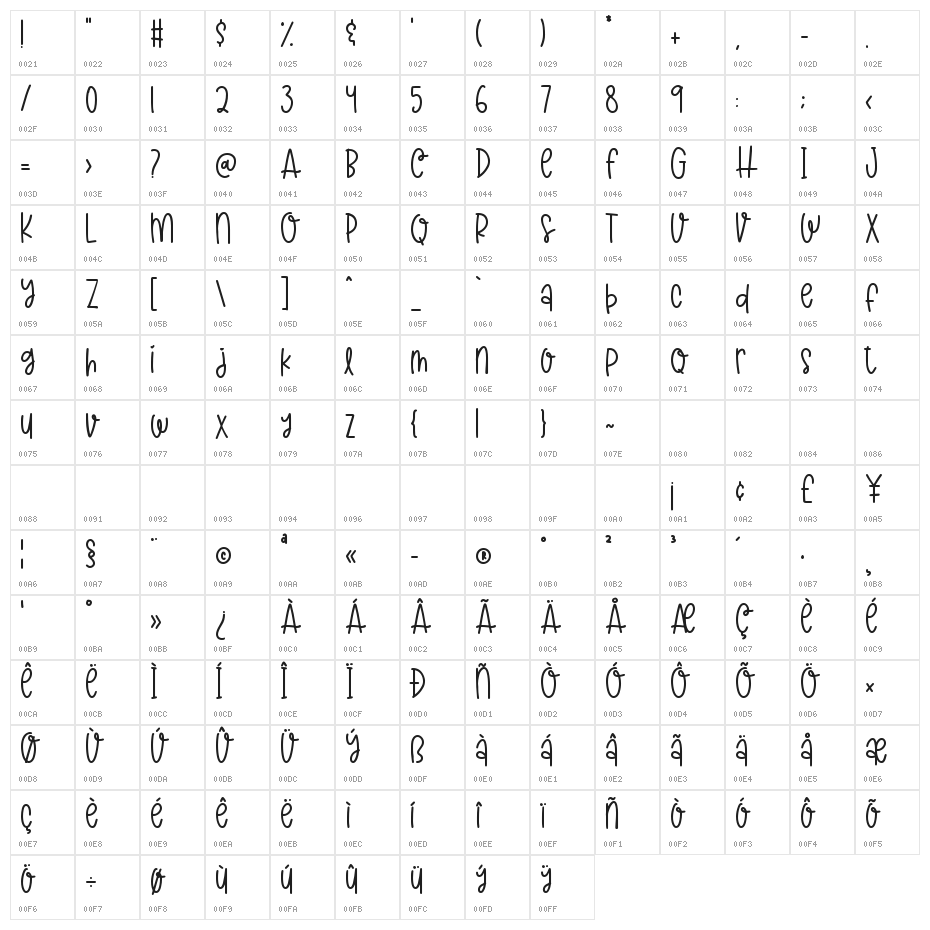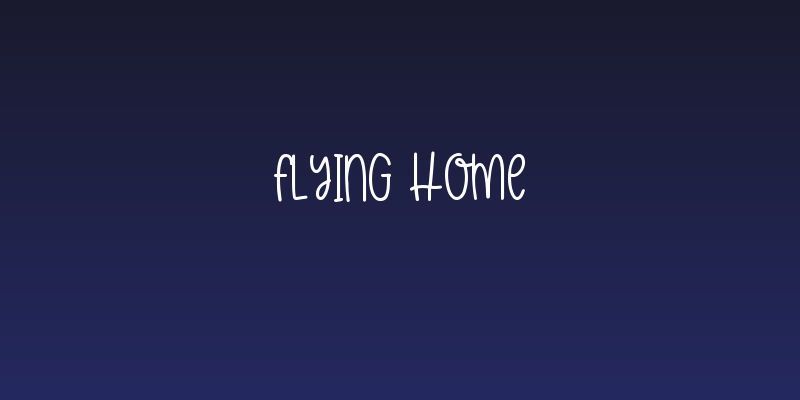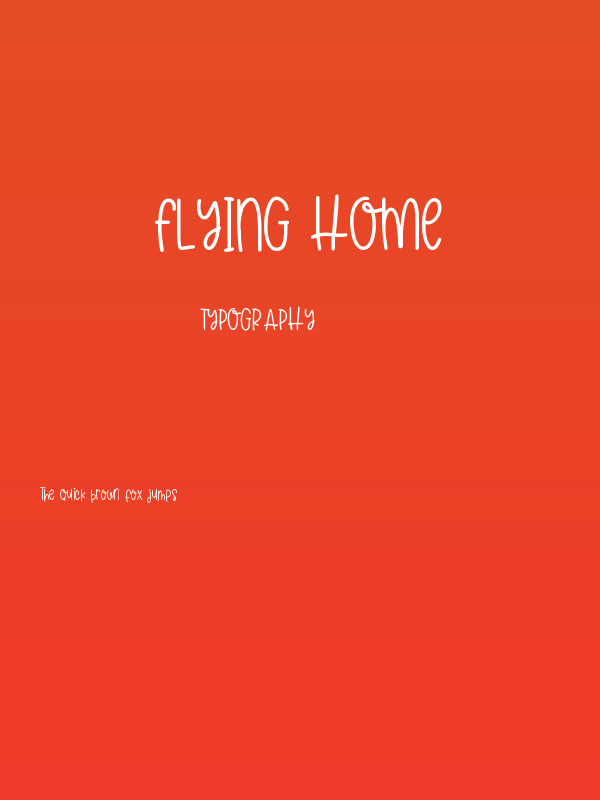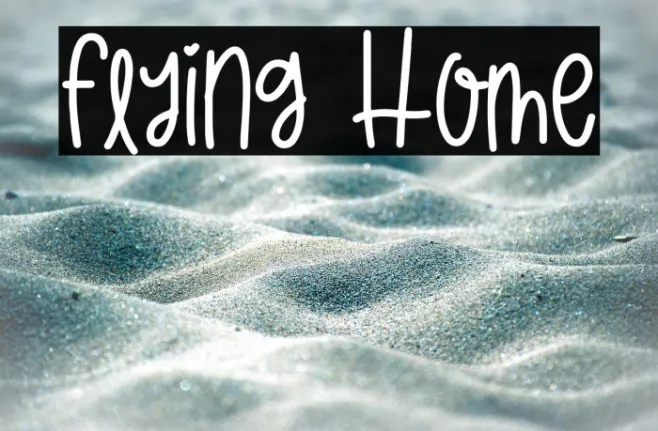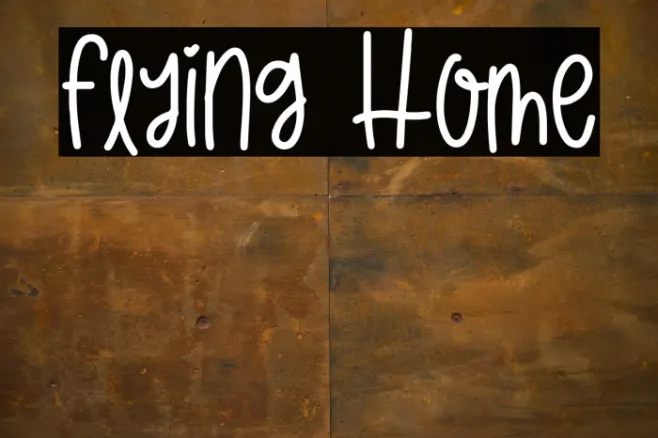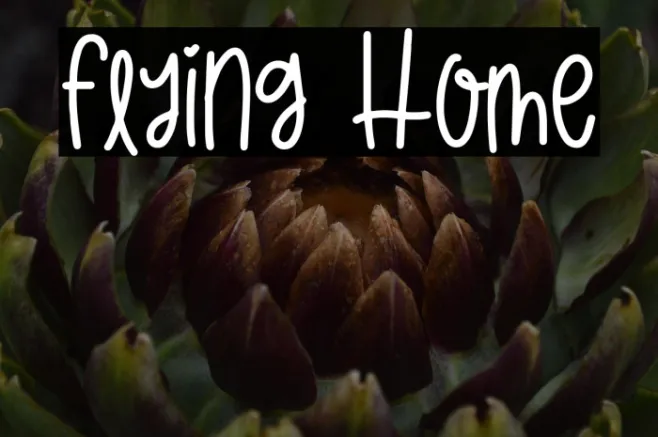
Flying Home Font
Flying Home Description
This playful and whimsical font features a handwritten style with a casual and friendly appearance. The letters are tall and slightly narrow, with a consistent stroke width that gives it a uniform look. The rounded edges and smooth curves add to its approachable and informal feel. The font maintains a consistent baseline, with some characters having playful loops and swirls, particularly in the lowercase letters. The numbers and special characters are designed to match the overall style, ensuring a cohesive look across all elements. This font is perfect for projects that require a personal touch or a fun, lighthearted vibe.